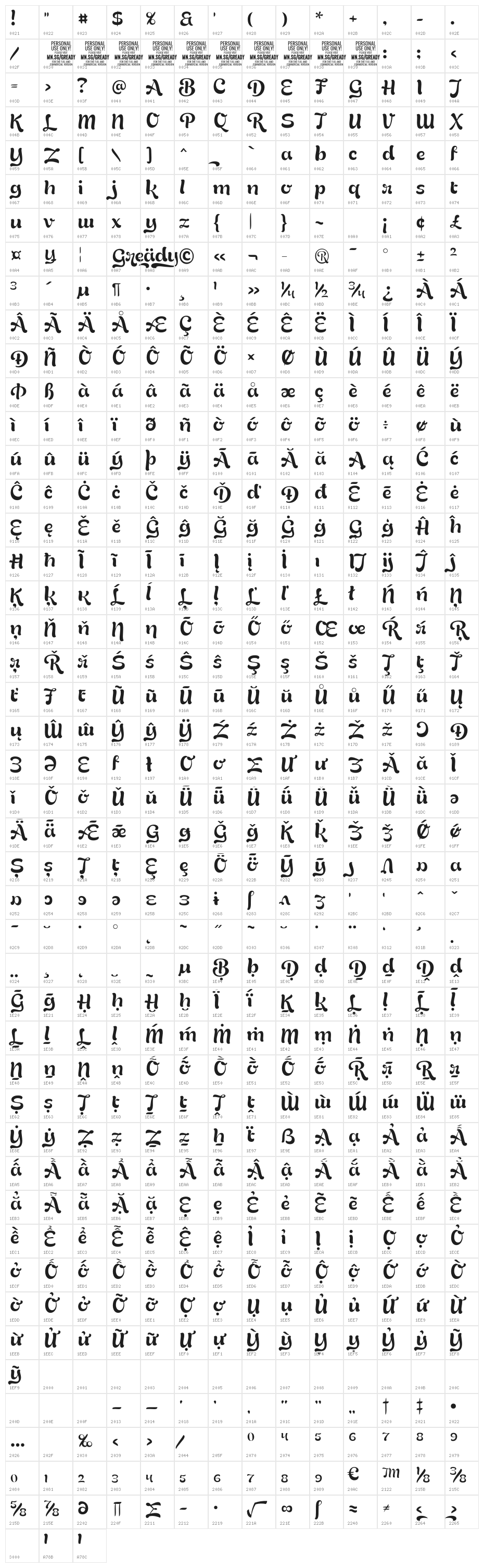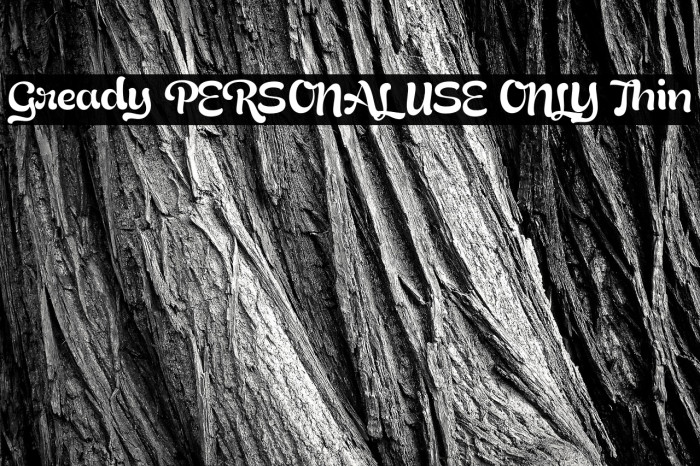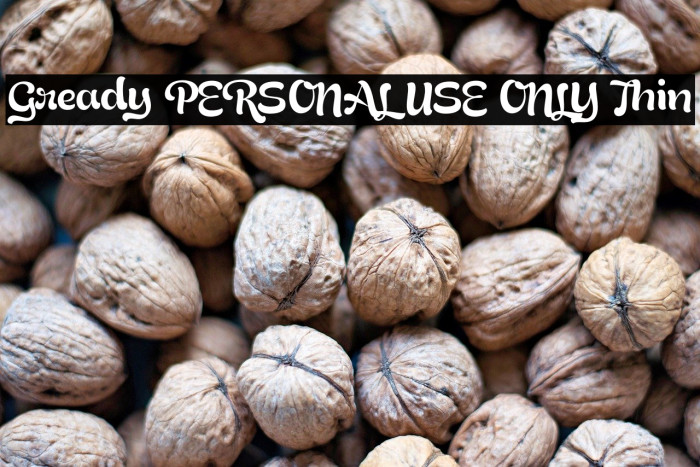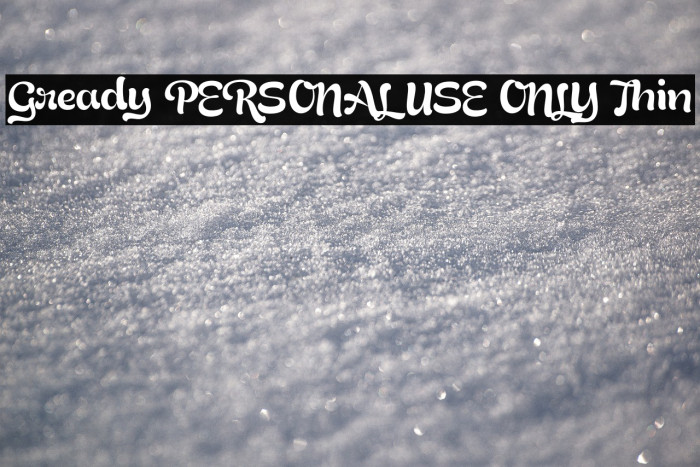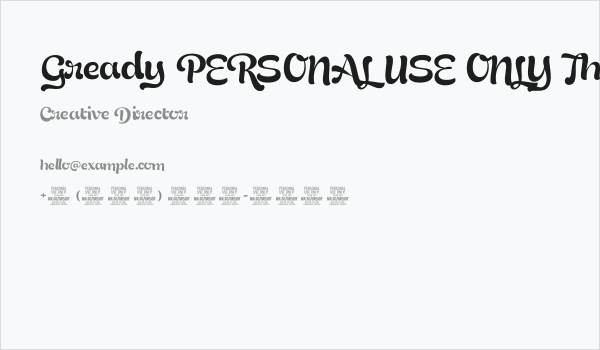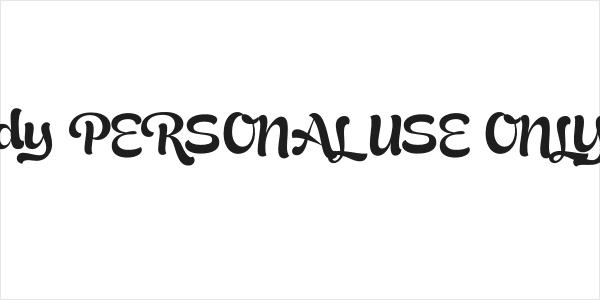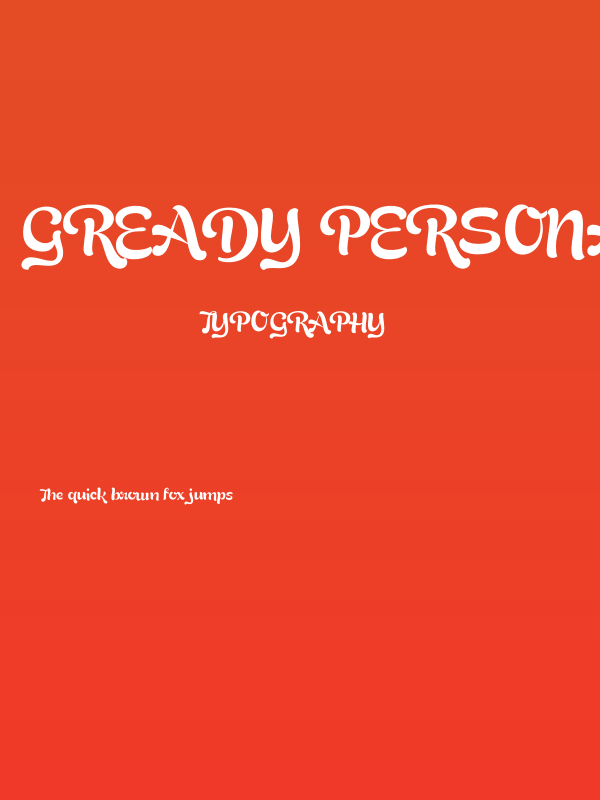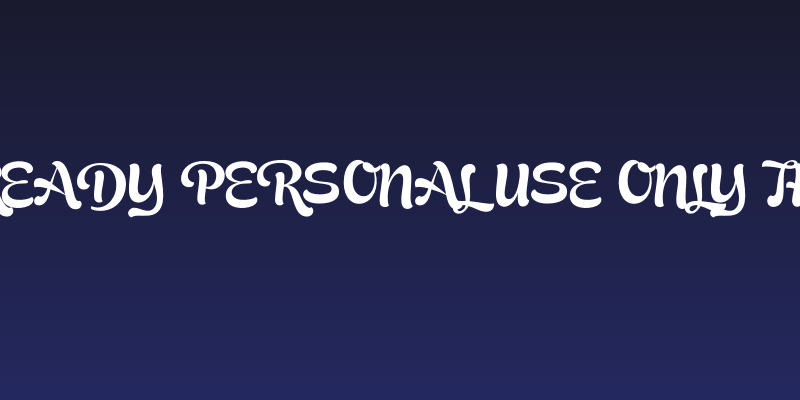
Gready PERSONAL USE ONLY Thin Font
Gready PERSONAL USE ONLY Thin Description
This font features a playful and bold script style with a whimsical touch. The characters are curvy and have a hand-drawn appearance, giving it a unique and artistic flair. The uppercase letters are slightly larger and more pronounced, while the lowercase letters maintain a consistent flow. The font includes a full set of numerals and a variety of special characters, making it versatile for different design needs. The strokes are thick and consistent, providing a strong visual impact. This font is ideal for projects that require a fun and engaging look.
| Proposed Projects | Great for greeting cards, playful branding, children's books, and creative posters. |